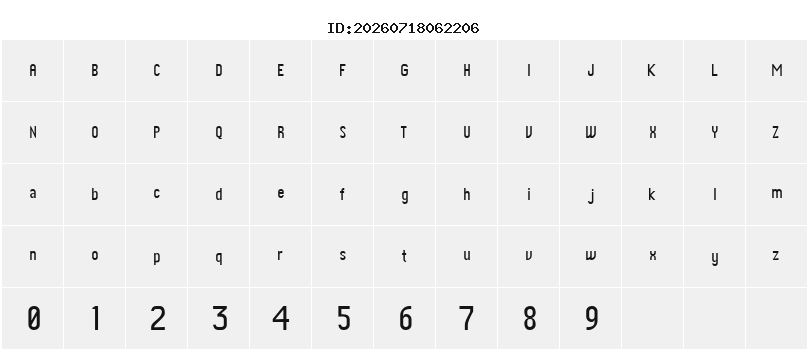
• Font Name: Chica Mono
Chica Mono.ttf is a modern, elegant sans-serif font designed for ultimate readability and visual harmony. Perfect for branding, headlines, web design, and print materials.